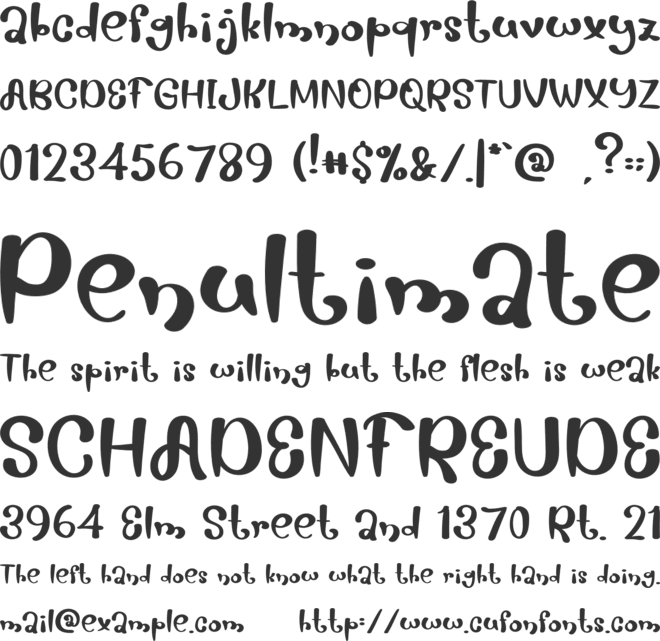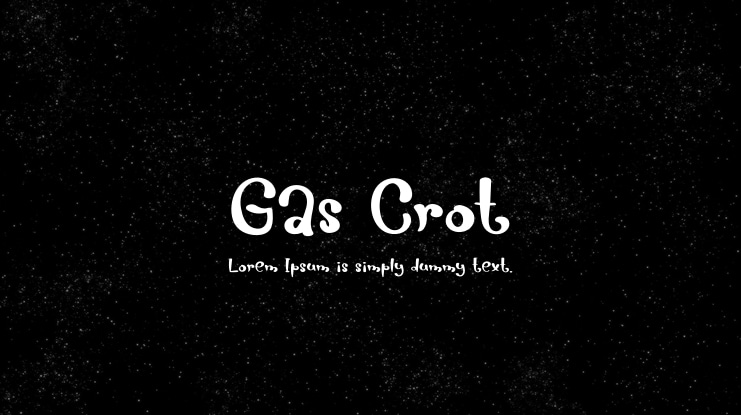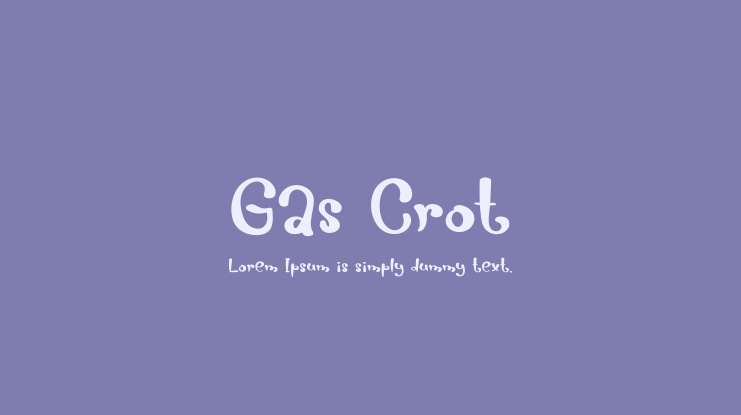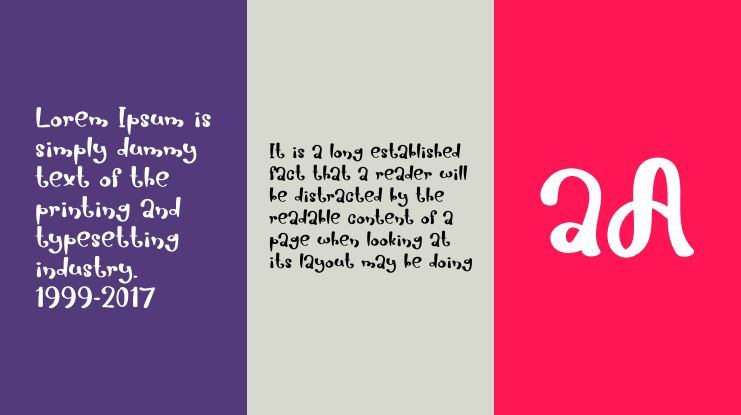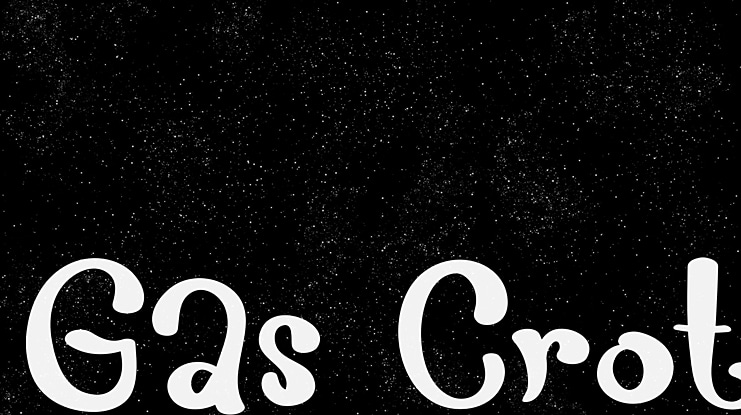
Gas Crot Font
Gas Crot is a playful and friendly display font. Whether you are using it for cartoon-related designs, childrens games, quotes, titles, brand names, book covers, posters, or just any creation that requires a touch of beauty, this font is a great choice.